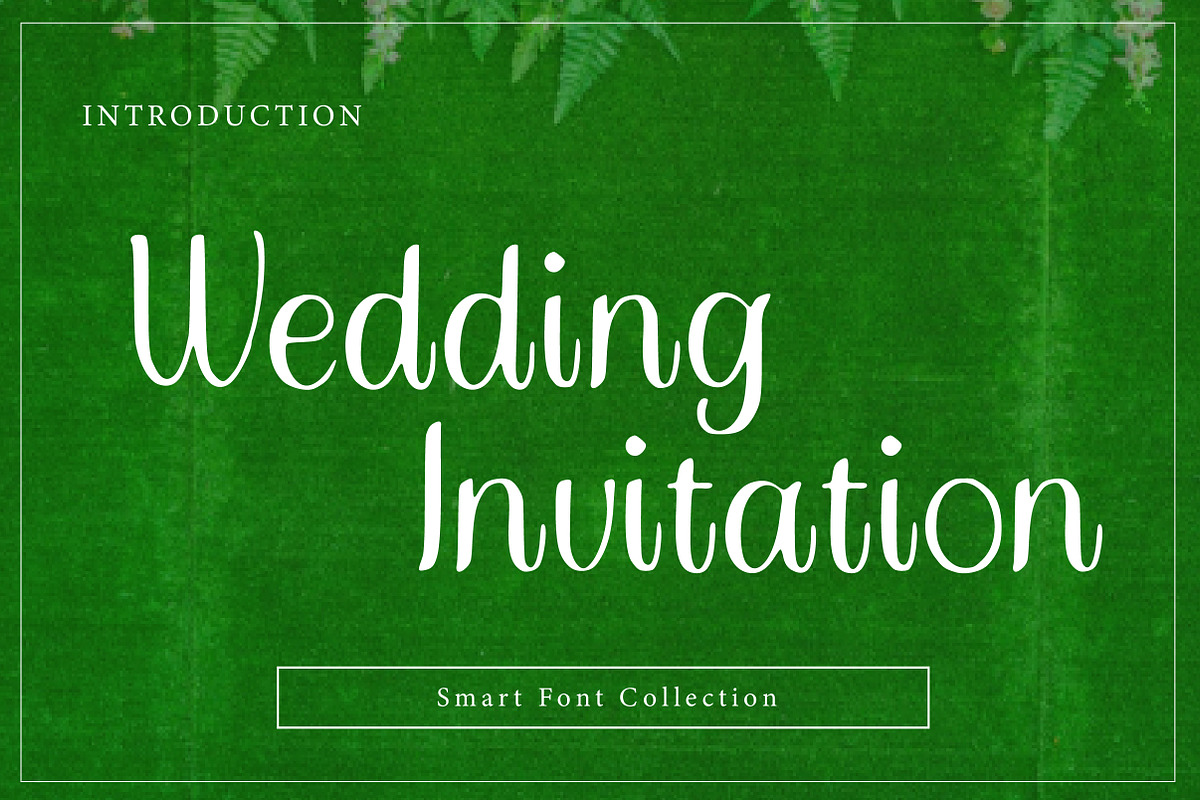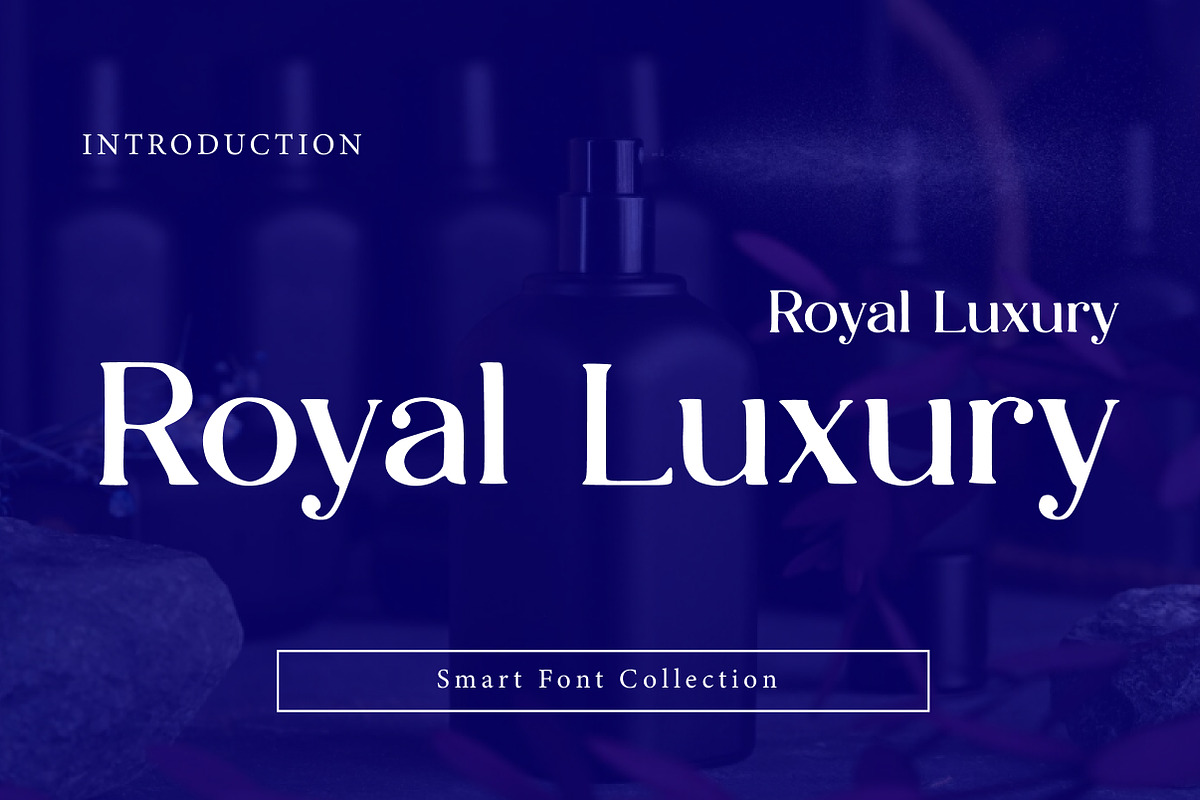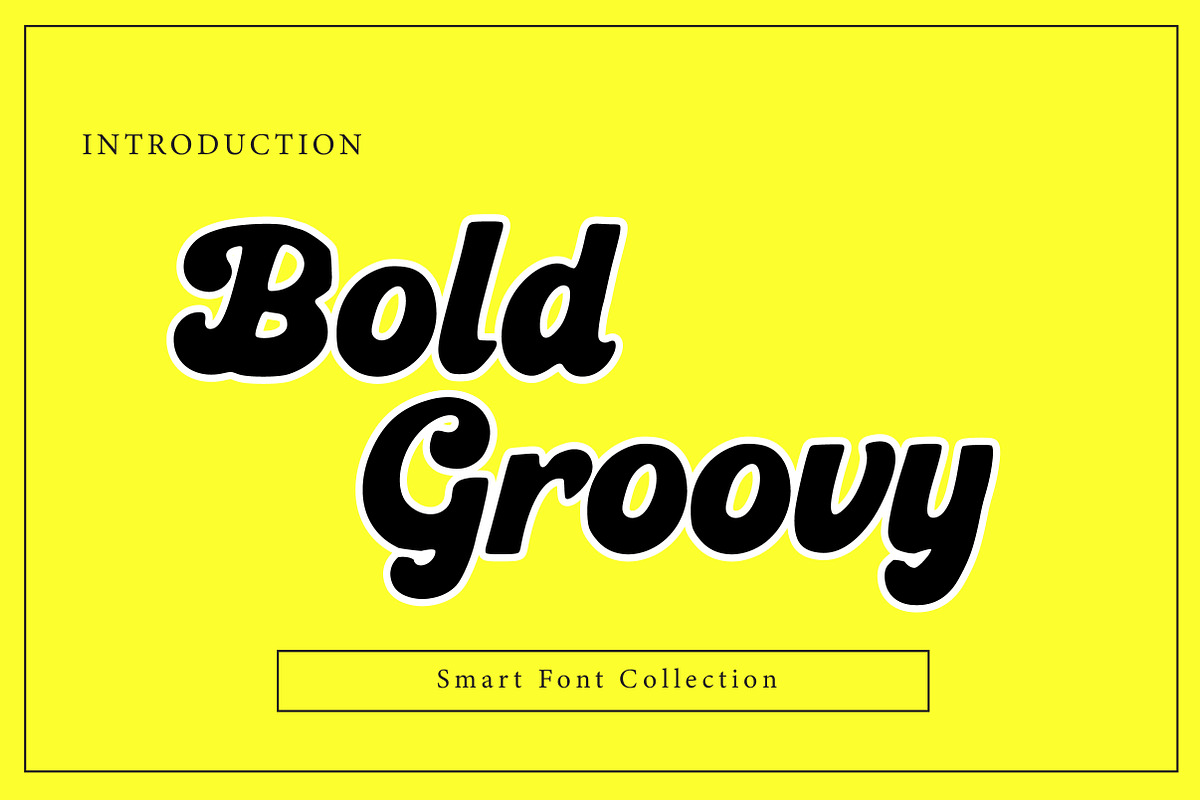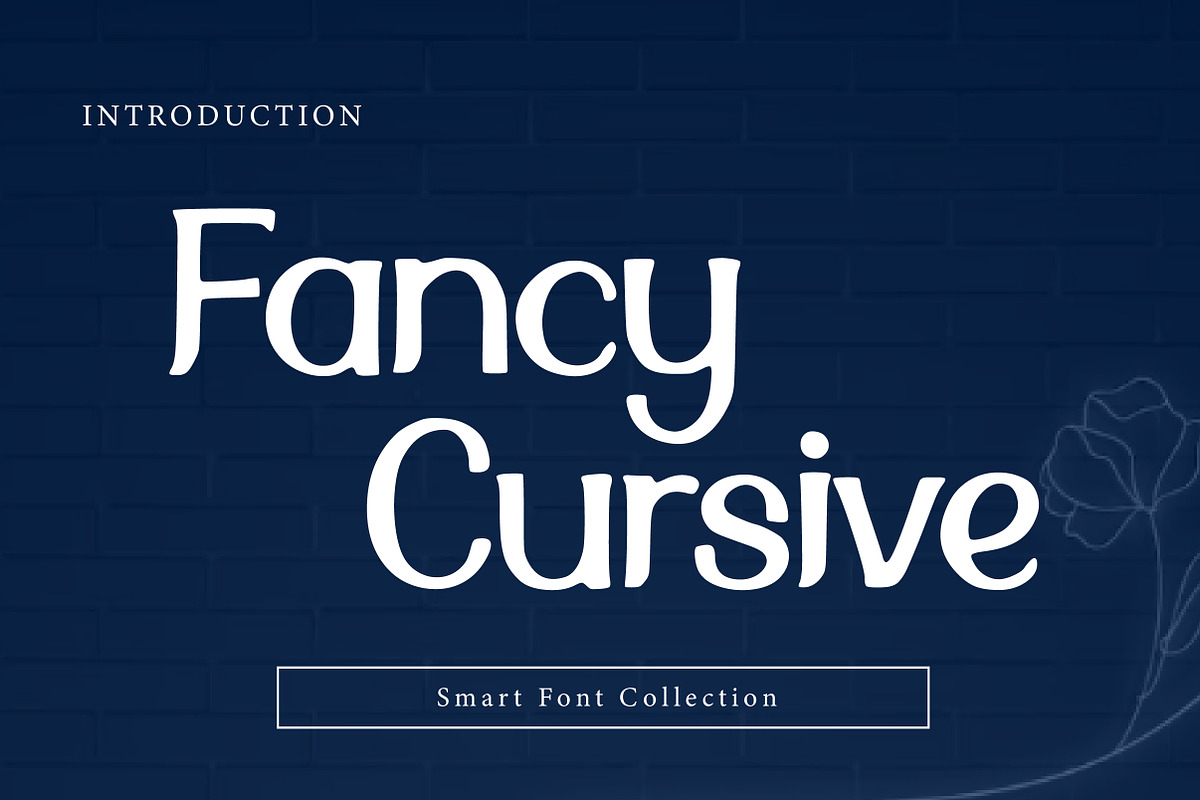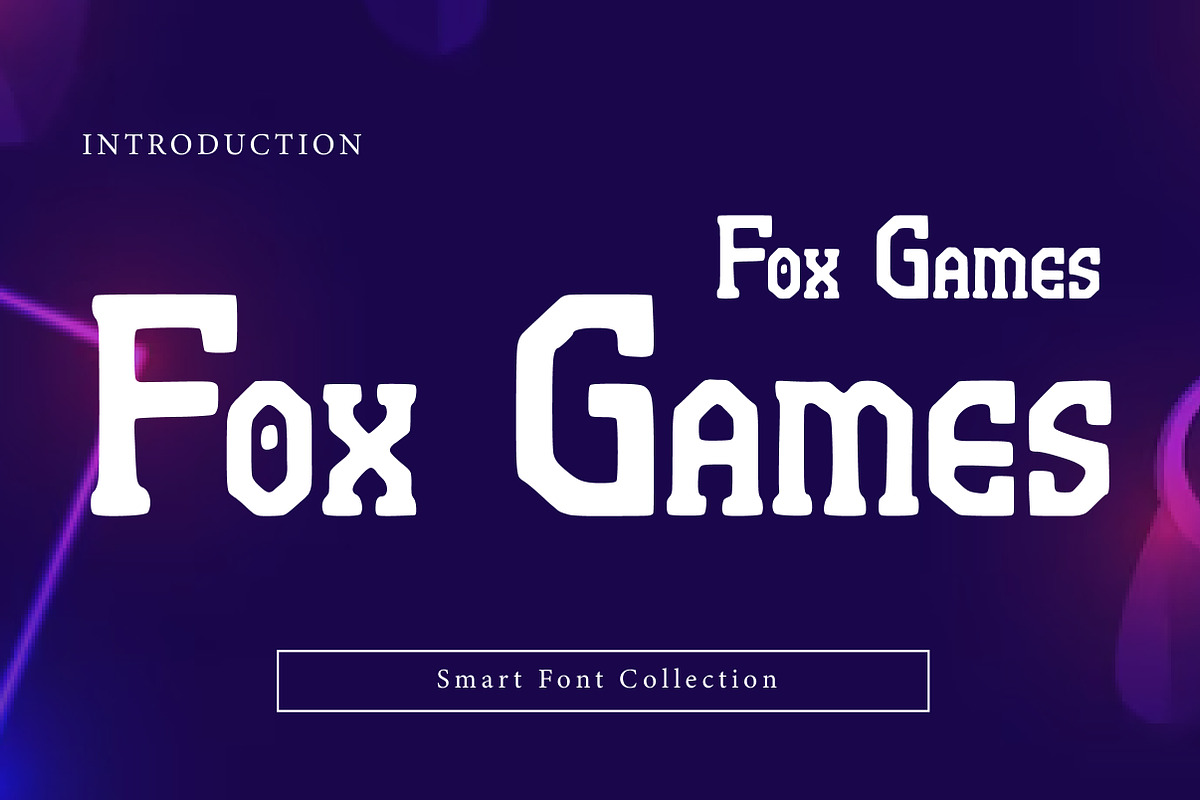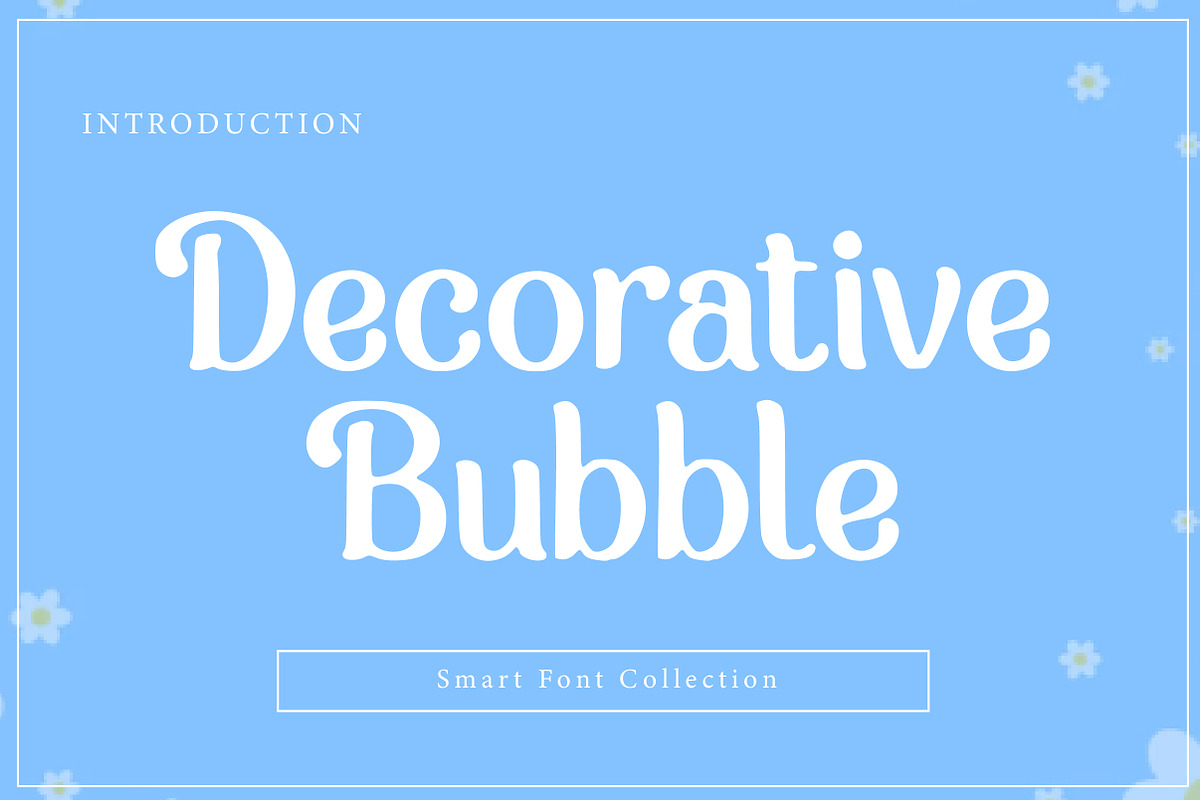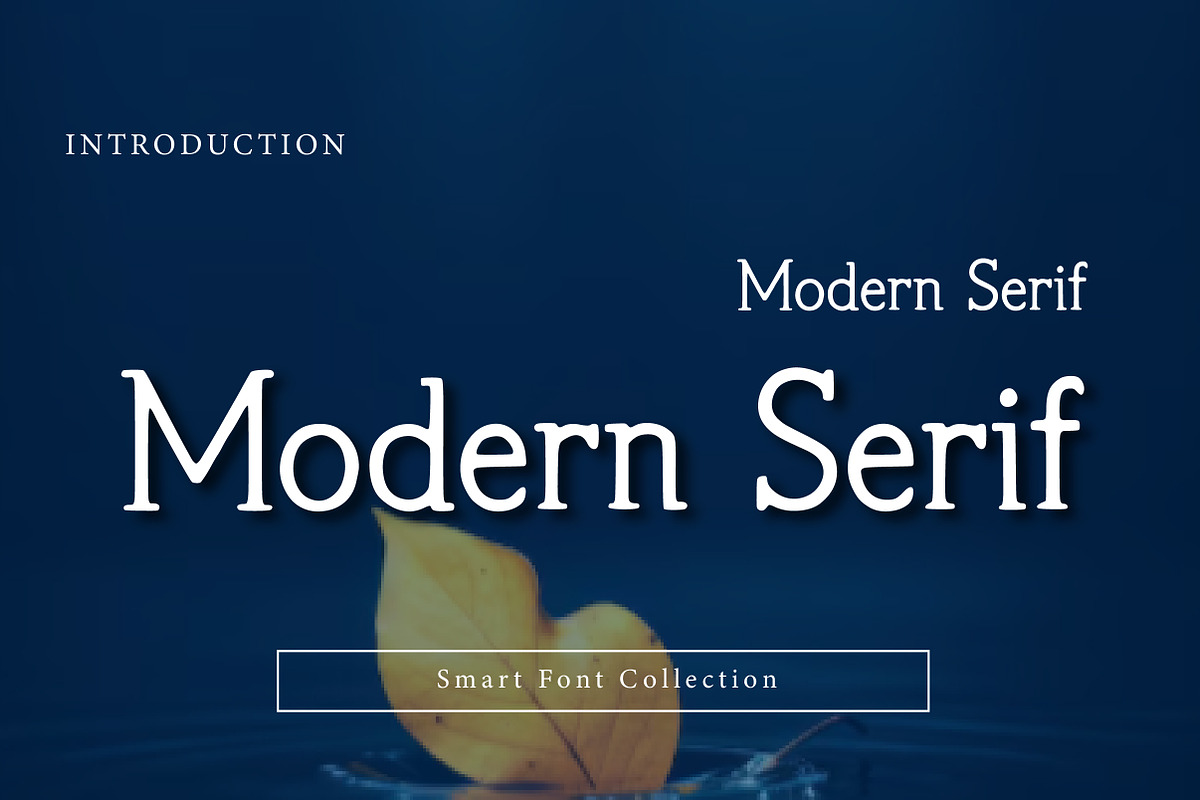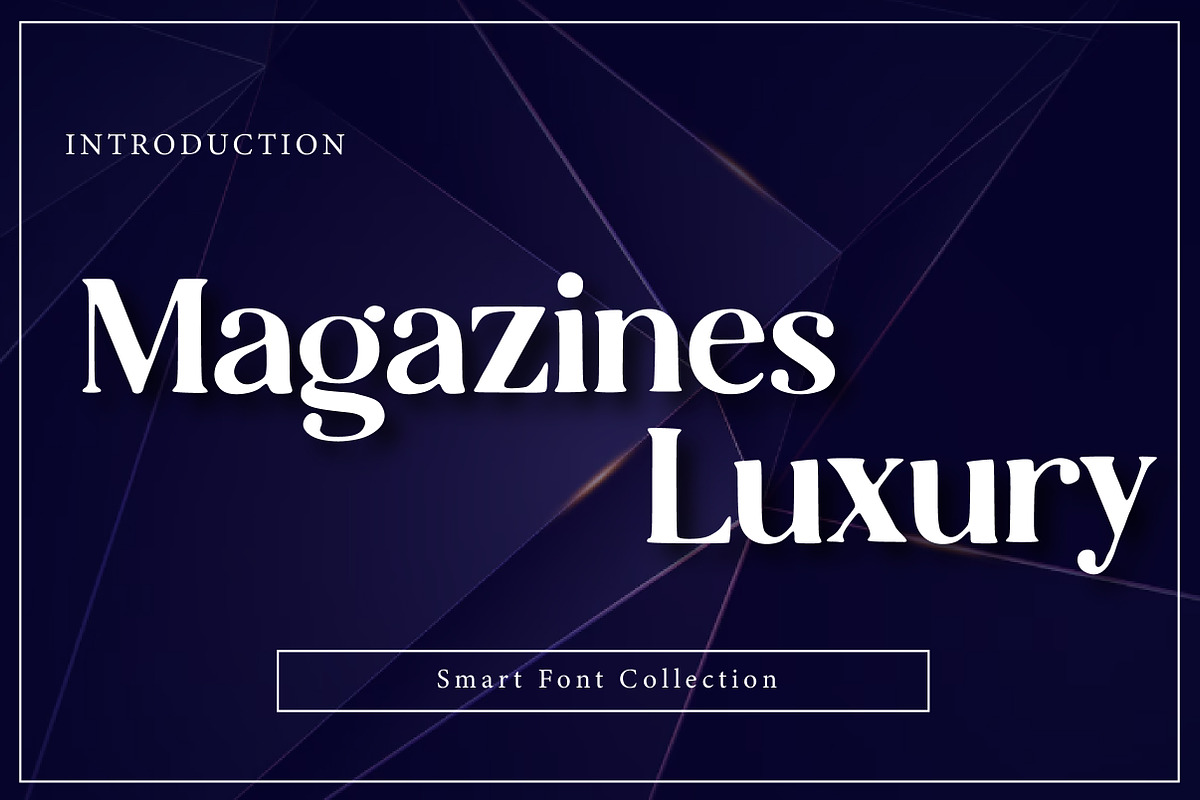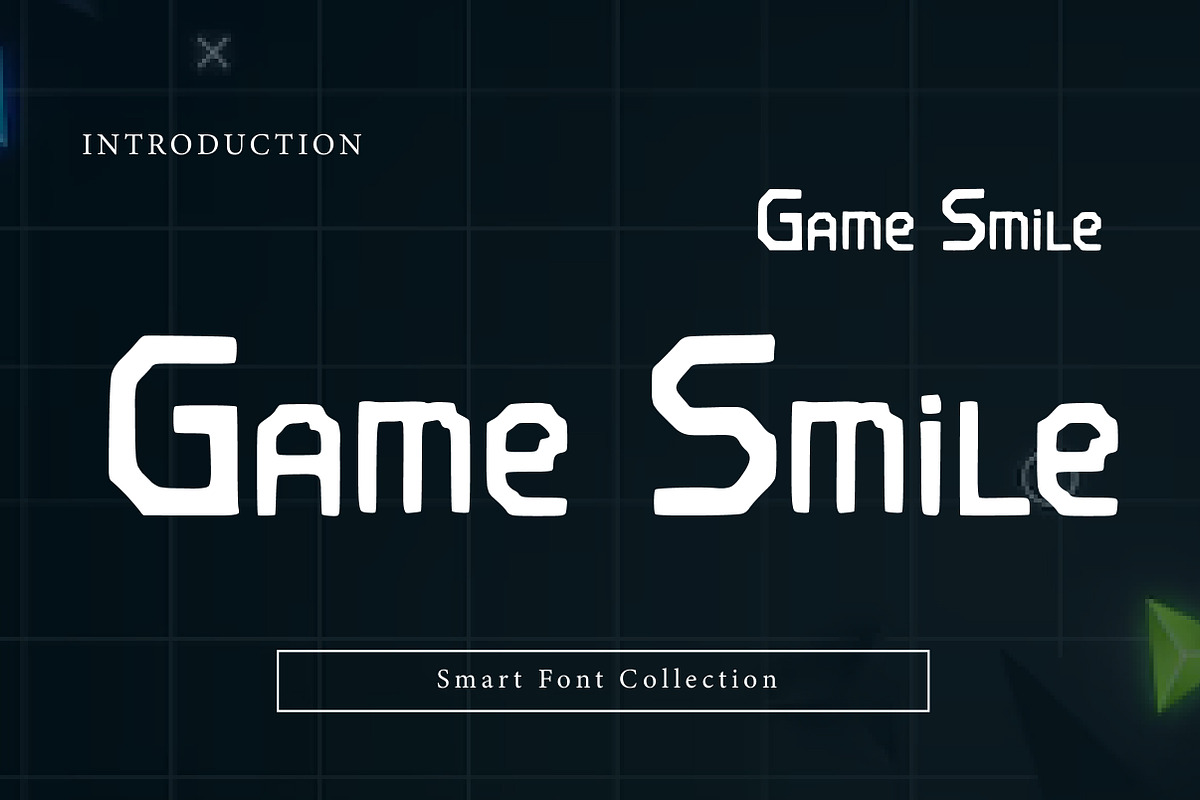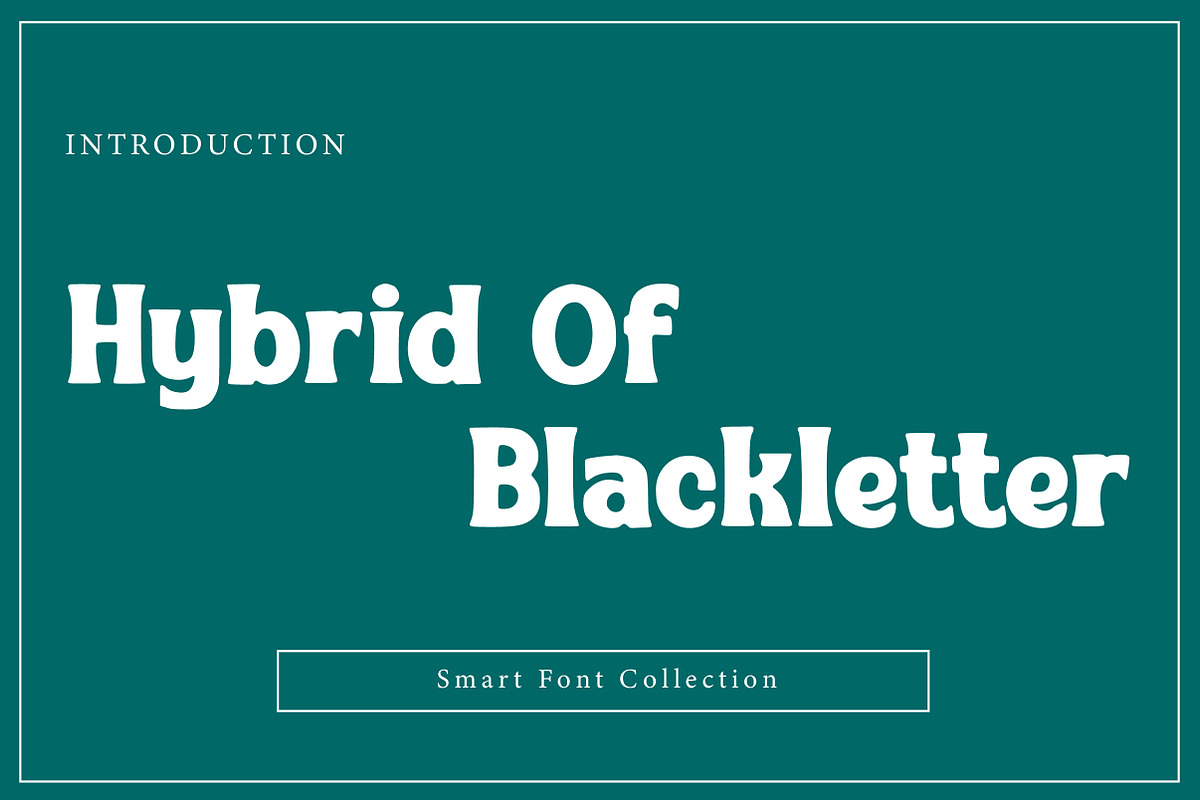
The Logo & Branding Bundle Font
The Logo & Branding Font Bundle
Introducing The Logo & Branding Font Bundle — a premium collection of 30 unique display fonts crafted for designers, creators, branding experts, and typography lovers. This versatile font bundle combines bold blackletter styles, elegant luxury serifs, playful bubble fonts, gothic typography, retro groovy lettering, modern futuristic designs, and tall condensed displays — all in one complete package.
Inside this bundle, you’ll find a carefully curated mix of styles including futuristic fonts, gothic fonts, retro fonts, playful kids fonts, luxury serif fonts, tattoo-inspired typography, Victorian ornaments, gaming fonts, and modern branding typefaces.
Included Font Styles
Abstract Symmetric
Black Gothic
Bold Groovy
Cheddar Gothic
Fox Games
Hybrid Of Blacklette
Kids Bubble
Magazines Luxury
Marve Thick
Ornate Victorian
Romantic
Tall Display
…and many more.
High Quality Display Fonts
This bundle is designed to help creators build stunning visual identities with powerful typography and professional aesthetics.